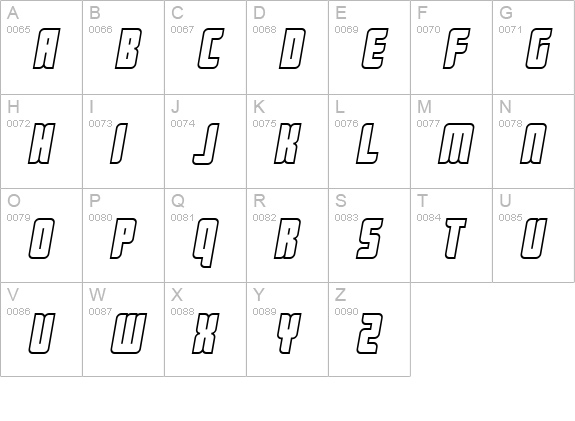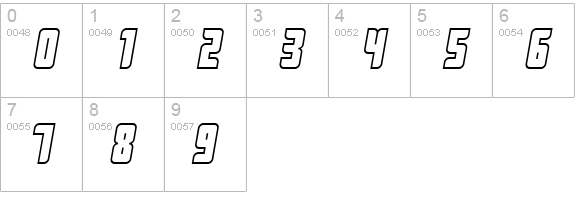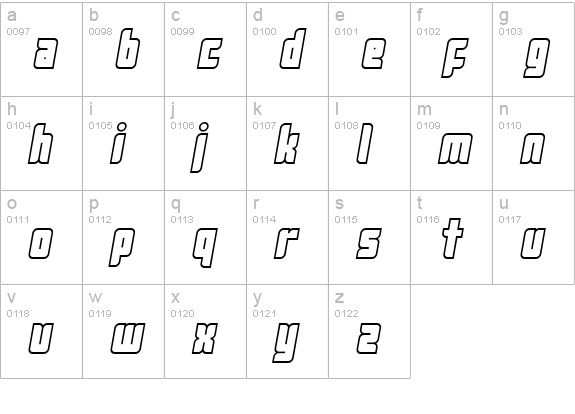
Push font is a modern and versatile typeface that exudes a sense of strength and confidence. Its sleek lines and bold curves give any text a dynamic and impactful appearance, making it perfect for headlines, logos, and branding projects. With a contemporary design that is both stylish and readable, Push font is sure to make a statement in any graphic design or typographic project. The best part? Push font is completely free to download at FontsMarket.com. This means that you can access this high-quality typeface without any cost, making it a valuable addition to your font collection. Whether you're a professional designer or a hobbyist looking to elevate your projects, Push font is a fantastic choice that won't break the bank. Download it today and see how it can enhance your creative work!